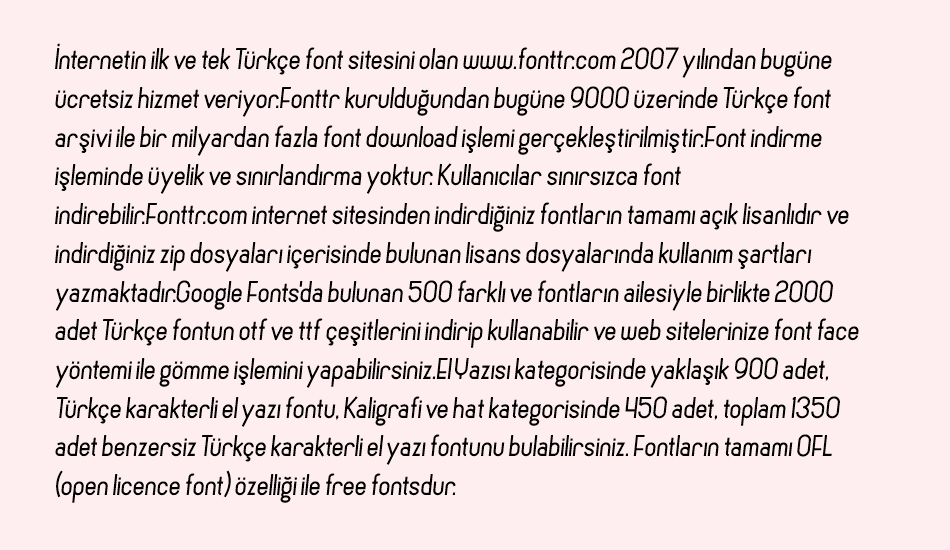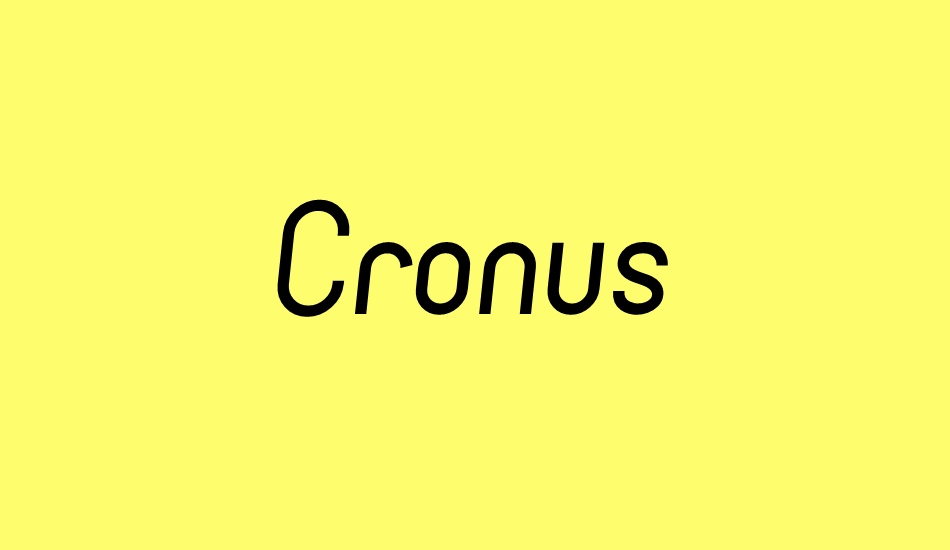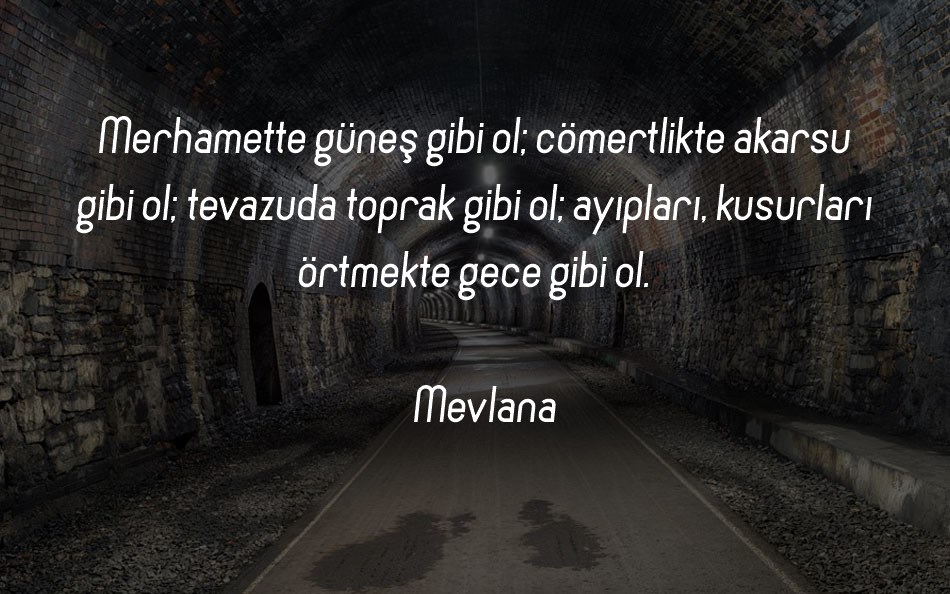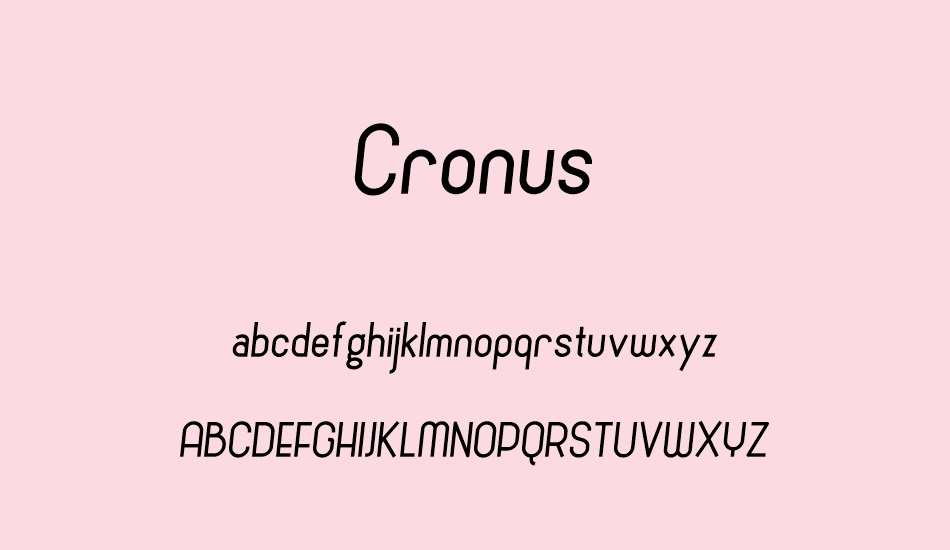
Cronus font
by Sharkshock
Say hello to Cronus! A simple enough everyday font with just enough personality to take home to mom. Originally styled as a thin sans serif I stumbled onto the concept of rounded terminals by complete accident. I couldn't decide which looked better so both regular and rounded are included.
Cronus won't do your taxes for you but would love to be the display font for your new app, powerpoint presentation, or company logo. Lowercase alternates such as a, g, and y (as well as their corresponding European accents) are included along with kerning and several different versions
to give your project just the right look. The curvy structure and clean, even line weight of Cronus is sure to compliment a bold title or provide easy legibility for descriptive text. Vertical strokes make it an ideal choice for display on smartphones and tablets.